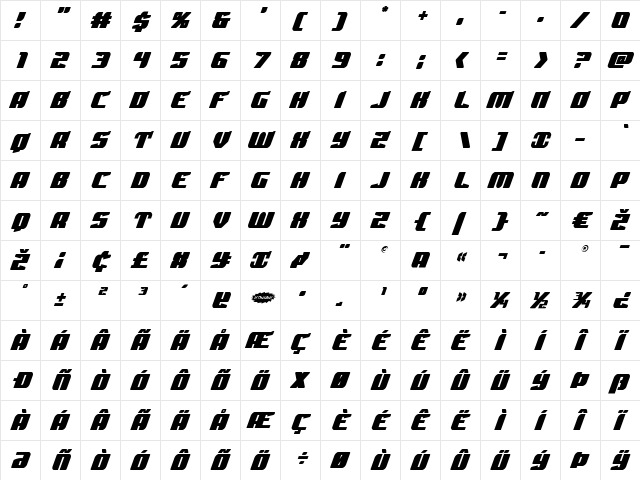
Spartaco Regular
Design Context for Spartaco Typeface
Spartaco is a composed and adaptable typeface that performs quietly and consistently across a wide range of design contexts.